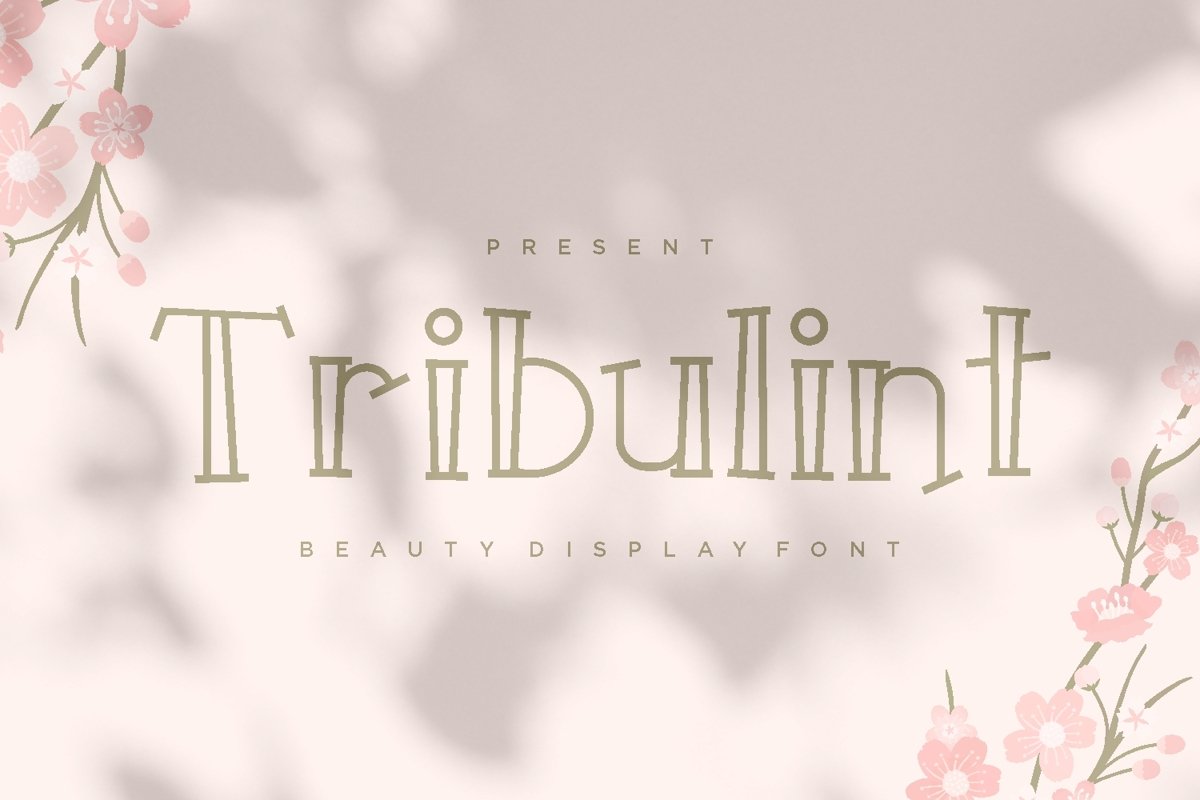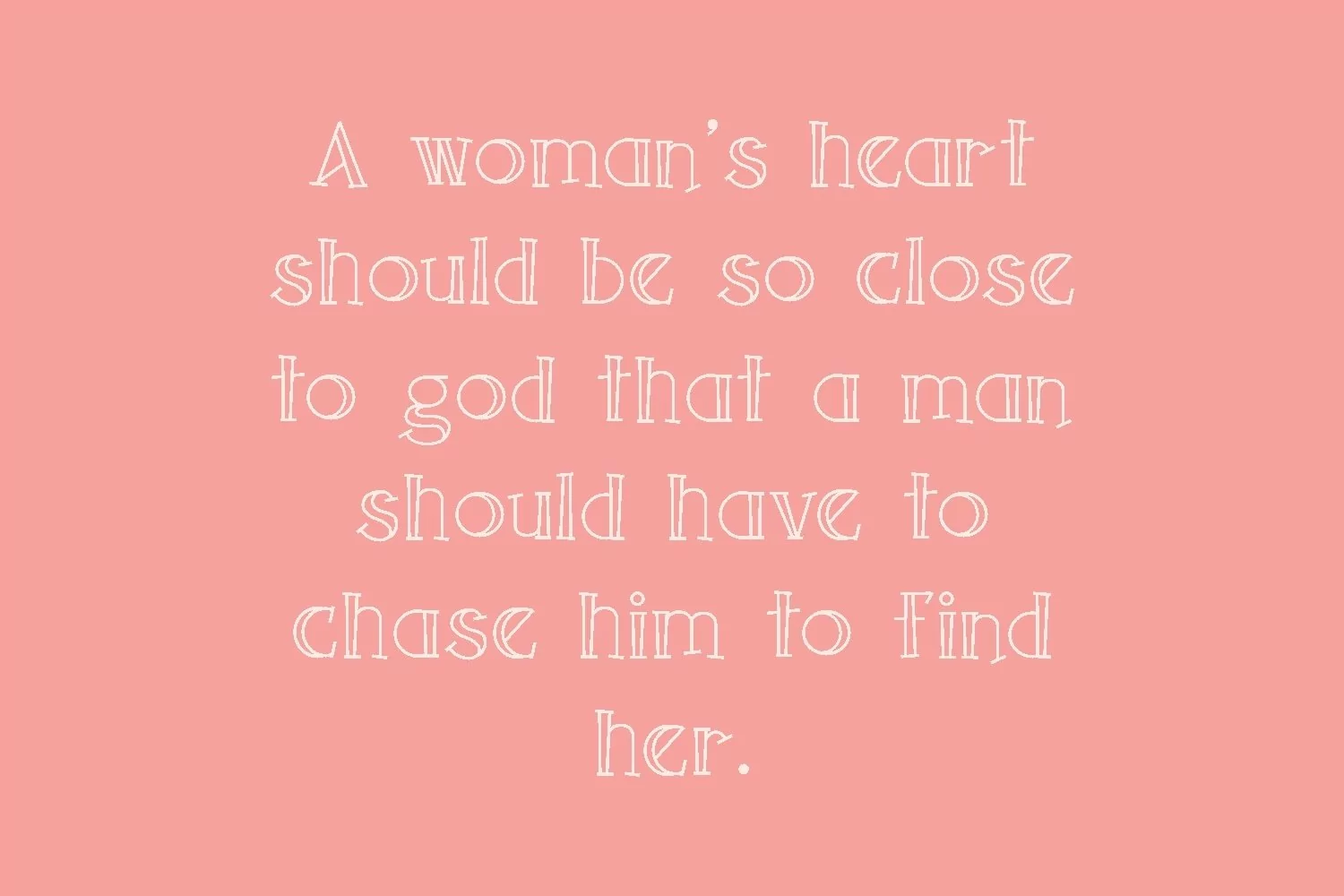
Tribulint is a stylish serif typeface come with beauty themes. It matches applies in some designs such as the logotype, brand, packaging, quotes, poster, shirt, book, wedding invitation and more custom design. The features uppercase, lowercase, numeral, punctuation & symbol, multilingual support.